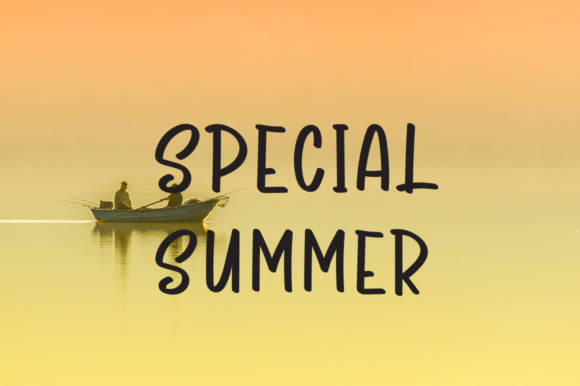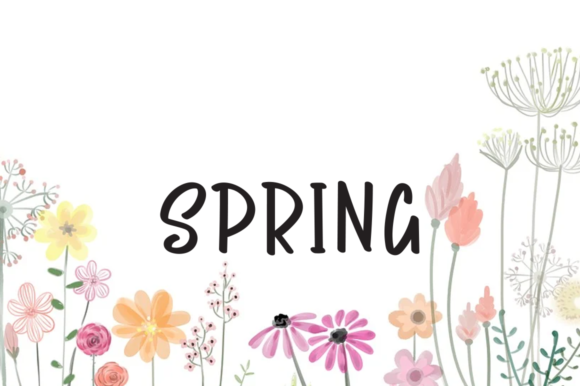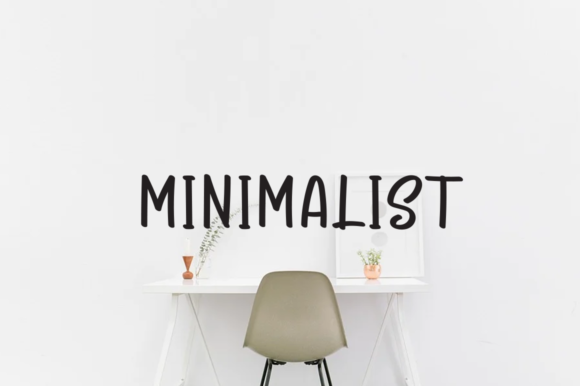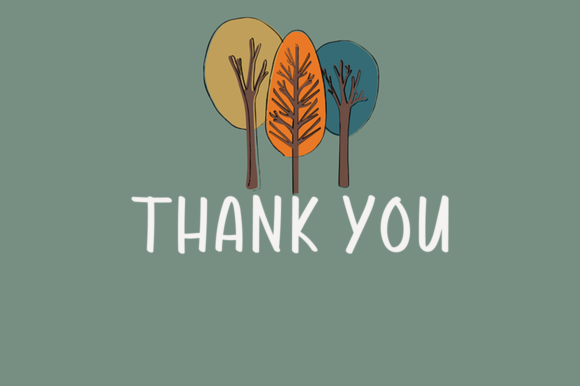
Summer Vibes Font
About Summer Vibes Font
Summer Vibes is a versatile and friendly handwritten font that exudes a vibrant and carefree atmosphere. With its thin letterforms and playful style, this font adds a touch of joy and positivity to any design.
The friendly and approachable nature of Summer Vibes makes it suitable for a wide range of projects. Whether you’re working on branding, packaging, social media graphics, invitations, or any other creative endeavor, this font will bring a sense of liveliness and warmth to your designs.
The thin lettering of Summer Vibes gives it an airy and light appearance, perfect for conveying a sense of summer and relaxation. It captures the essence of warm sunny days, beach vacations, and a laid-back lifestyle, making it an ideal choice for designs related to travel, leisure, and lifestyle.
The adaptability of Summer Vibes allows it to seamlessly blend into different design contexts. It can be used for headlines, subheadings, body text, or even as decorative elements. Its legible and readable letterforms ensure that your message is effectively communicated to your audience.
Summer Vibes is particularly well-suited for designs that aim to evoke a sense of positivity, happiness, and fun. Its handwritten style adds a personal and authentic touch, creating a connection with the viewer and infusing your designs with a sense of warmth and personality.
This font is not only visually appealing but also easy to work with. It supports a wide range of languages and includes a comprehensive set of characters, including uppercase and lowercase letters, numerals, punctuation marks, and special symbols.
Overall, Summer Vibes is a friendly, thin lettered, and adaptable handwritten font that brings a vibrant and carefree energy to your designs. It has the potential to elevate any creation, adding a touch of joy and positivity to your projects.